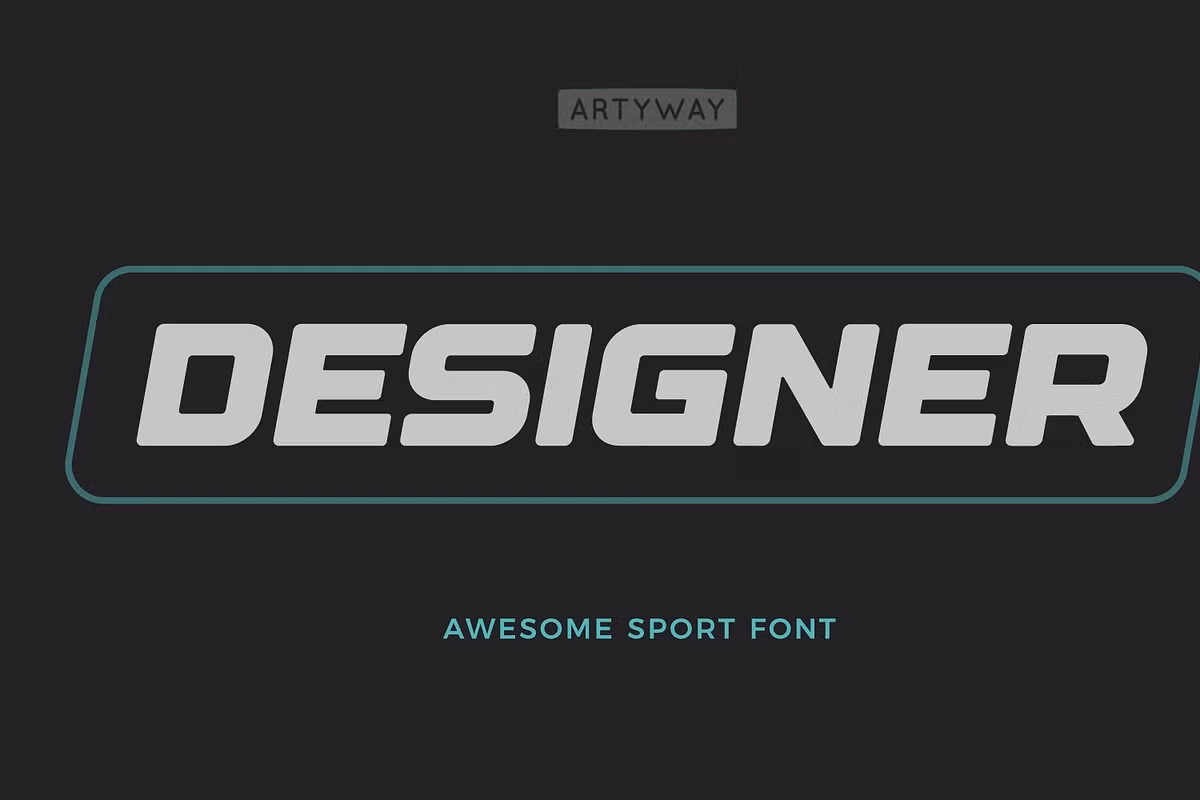
Headline Design Font Free Download
You must purchase this font for commercial use. However, you can download Headline Design Font Free Download for testing purposes. Headline Design is a bold, attention-grabbing typeface specifically created to make your titles, headers, and banners stand out with power and clarity. Ideal for advertising, posters, magazine layouts, website headers, and impactful branding, this font delivers maximum visibility and modern style with every letter.
With clean lines, sharp edges, and a contemporary aesthetic, Headline Design Font ensures your message is loud and clear while maintaining professional polish. Whether you're creating editorial content, launching a campaign, or building a dynamic web presence, this font gives your typography the edge it needs to cut through the noise. Headline Design Font Free Download lets you test its visual strength in your next creative project. For any commercial or client-related work, be sure to purchase the proper license. Download Headline Design Font Free Download today and take your titles to the next level with bold, confident design.